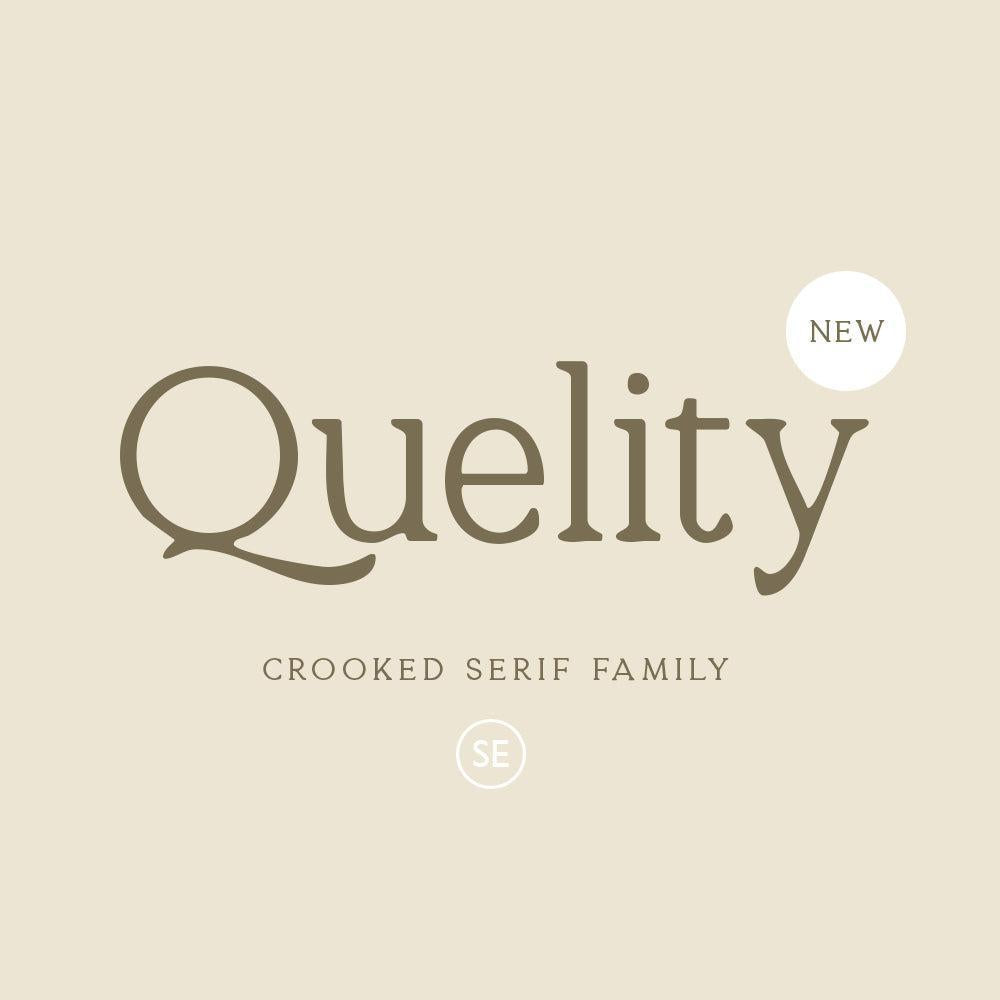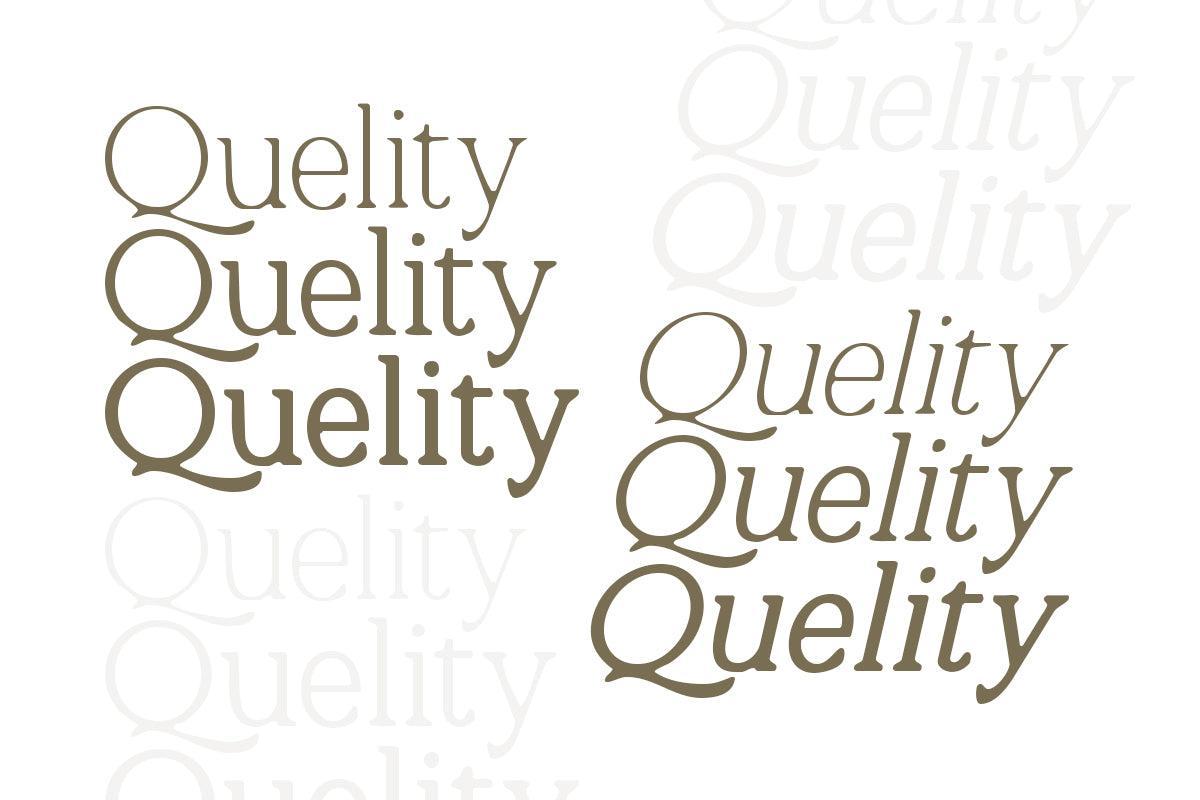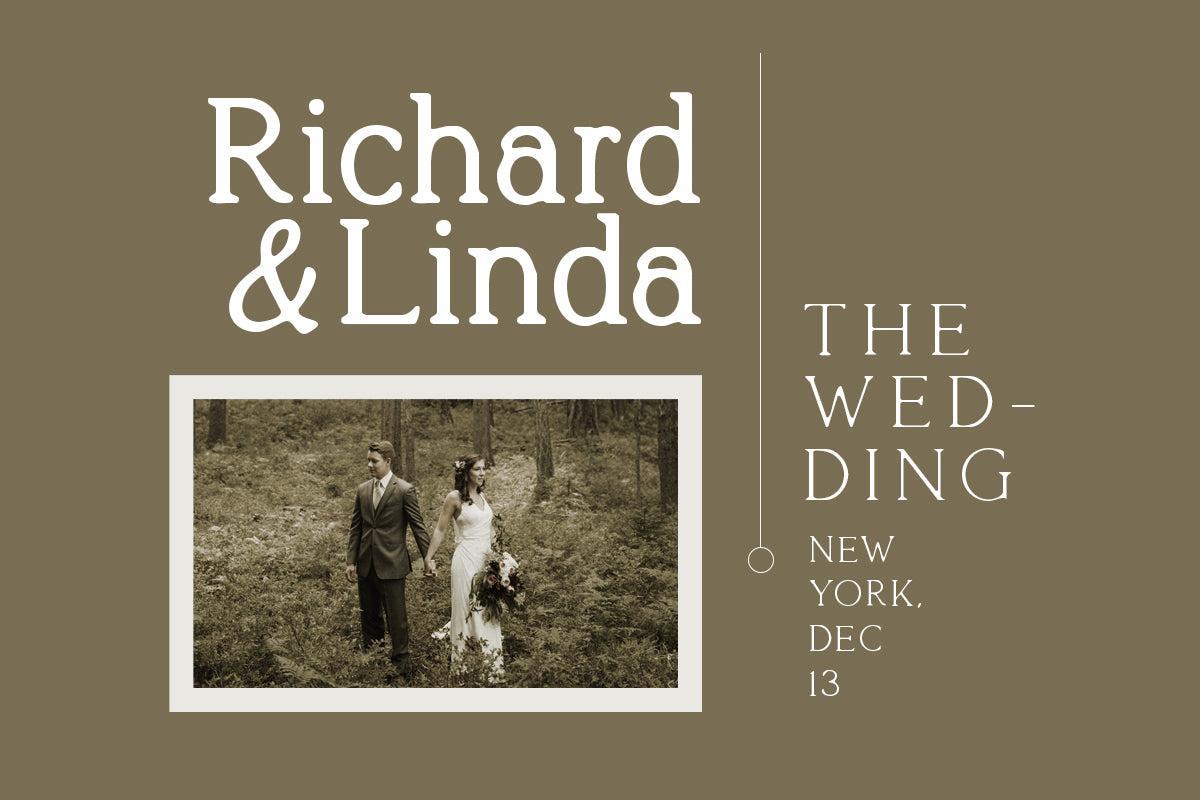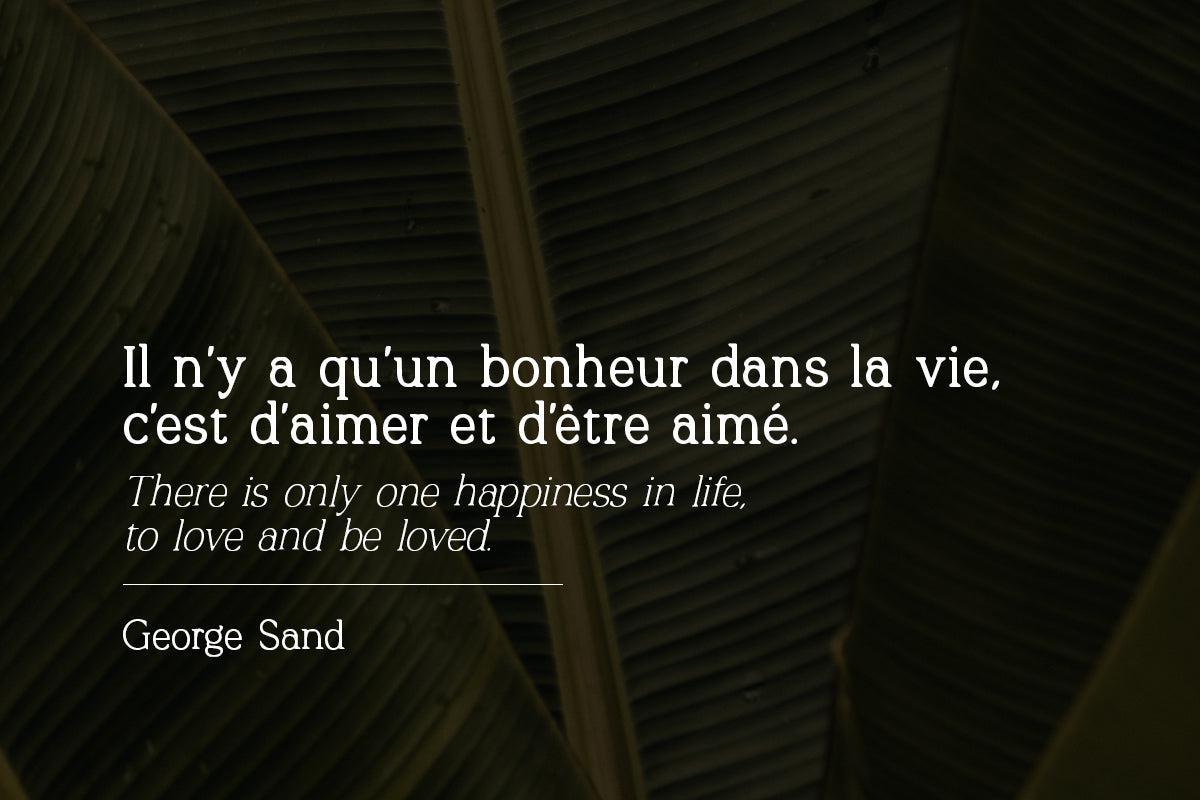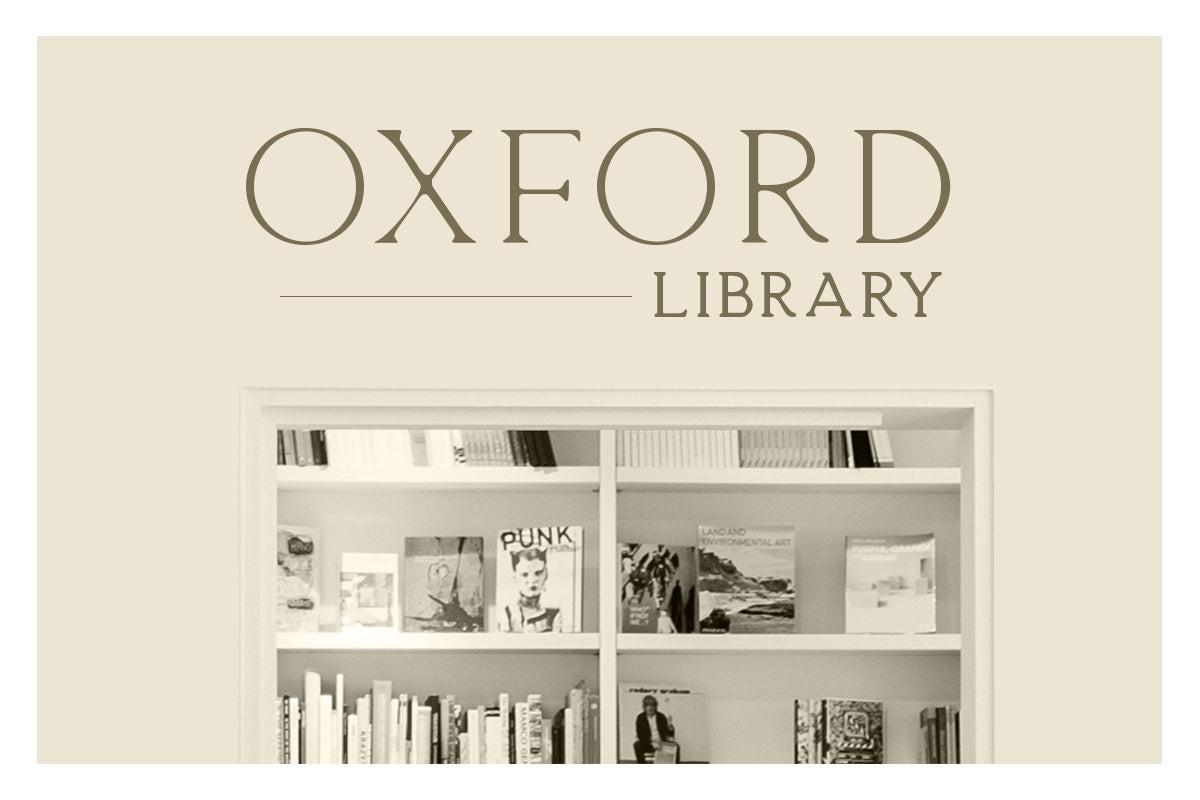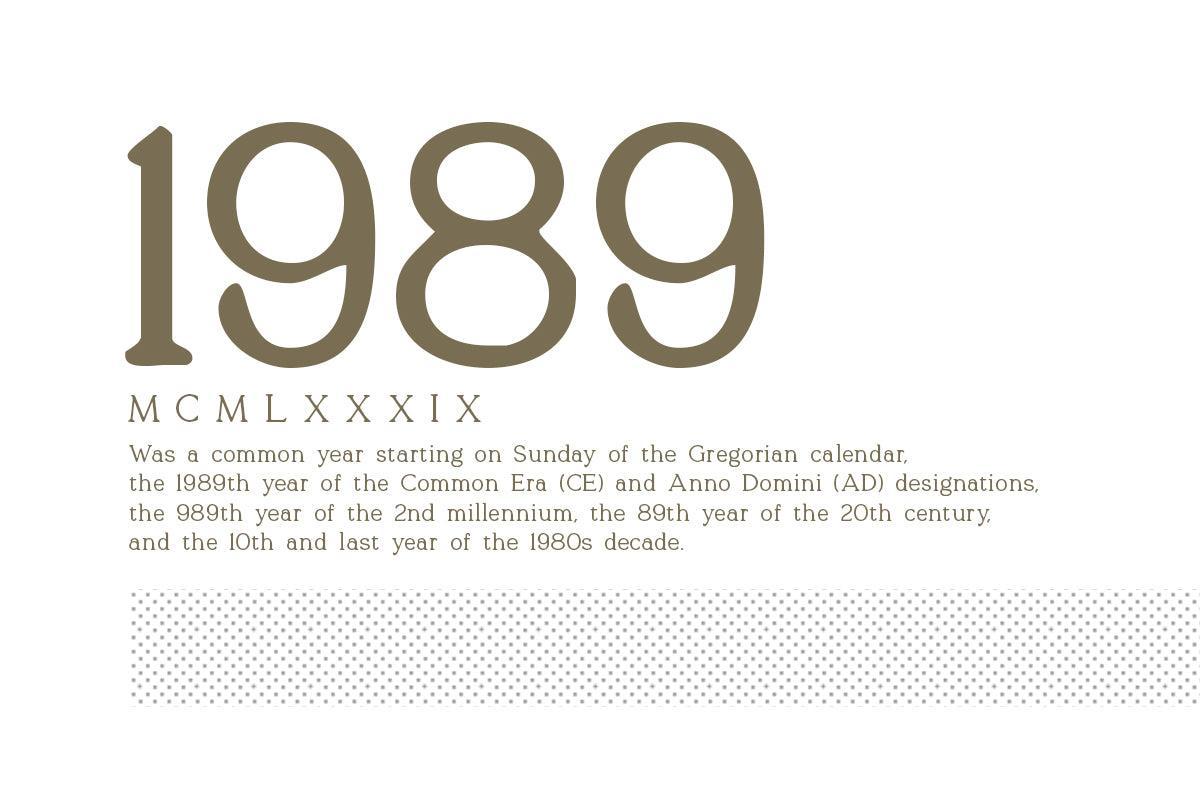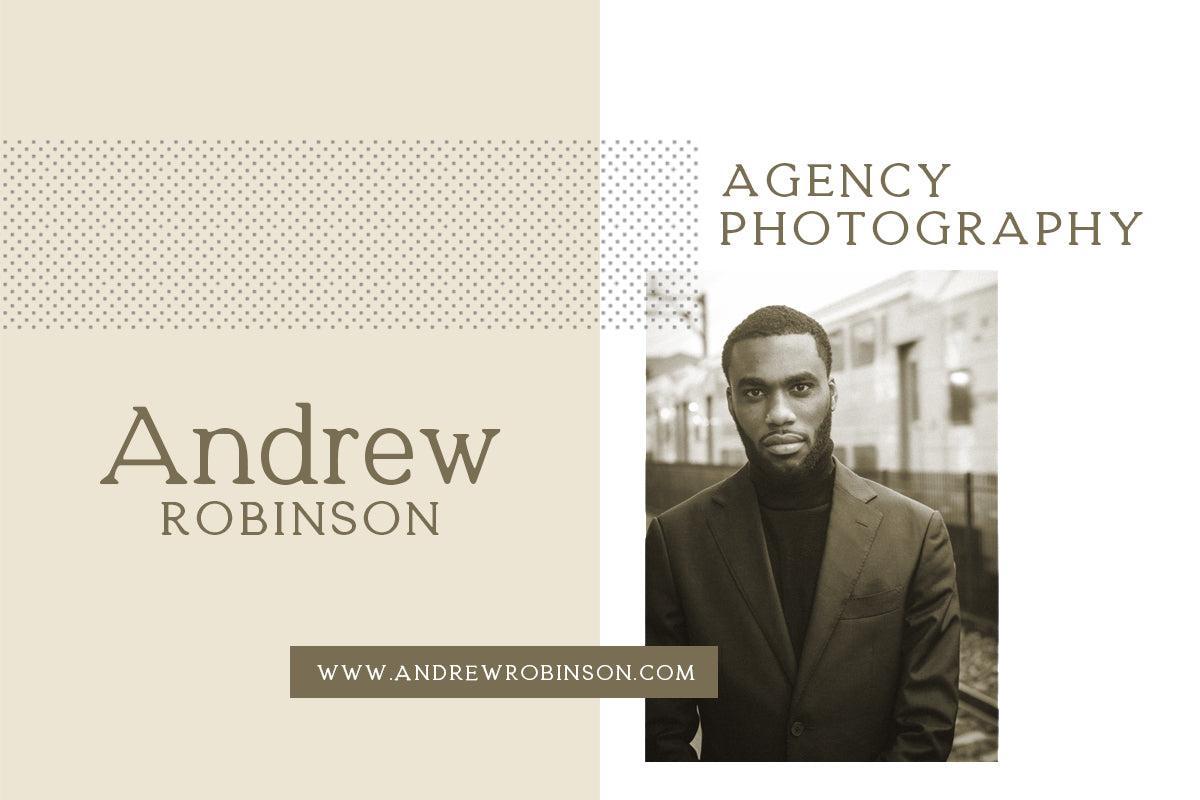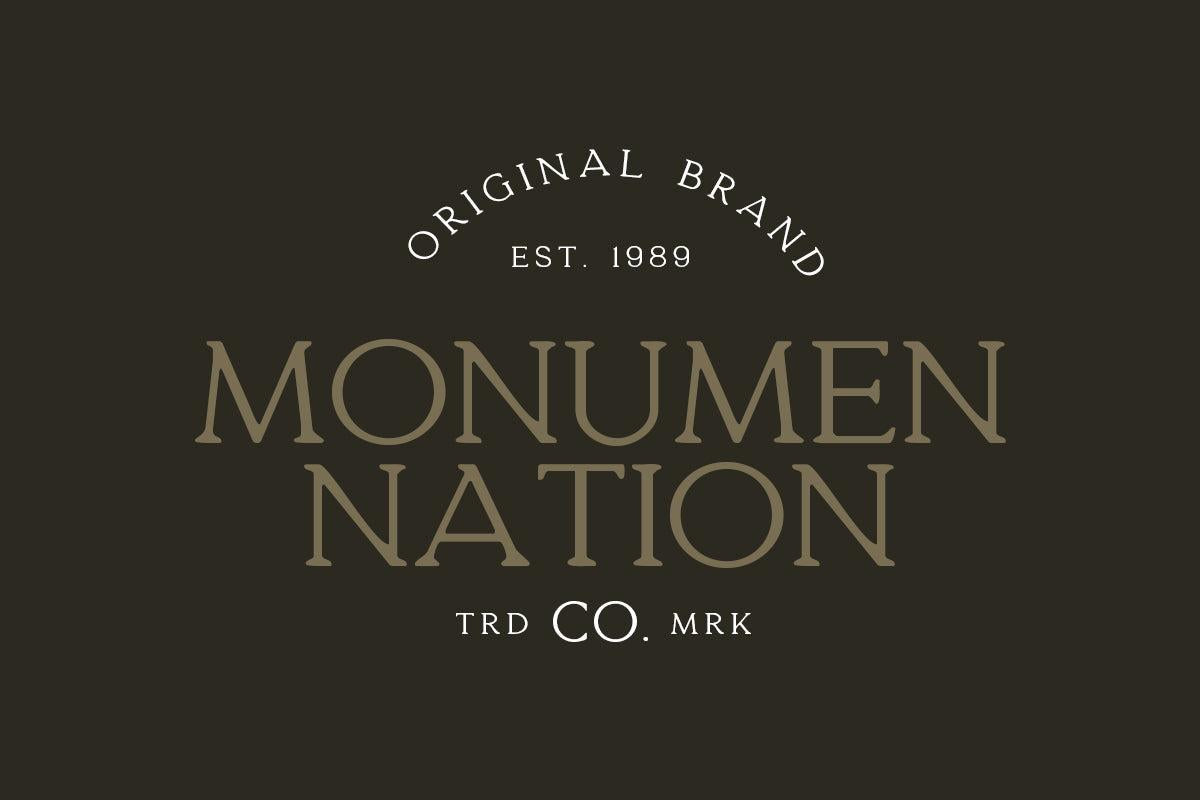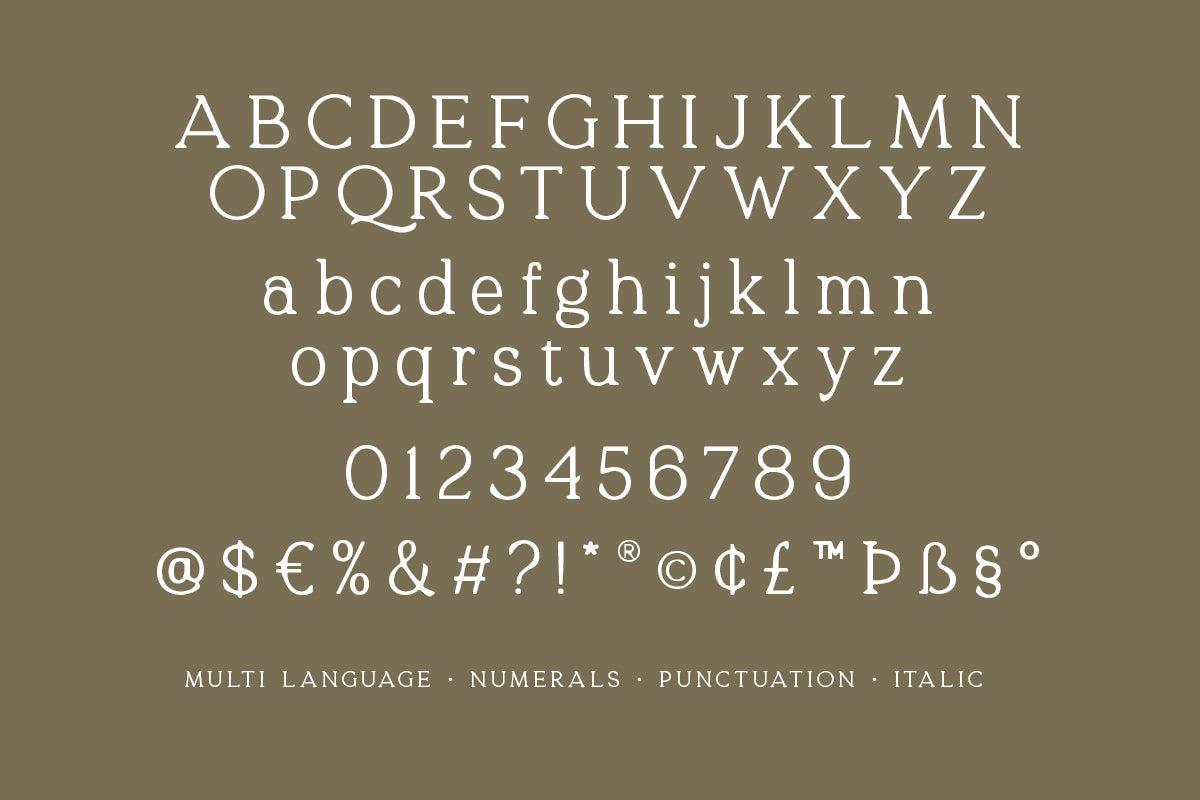
Quelity - Crooked Serif Font
Quelity is a crooked serif family with natural and organic feels! Contain 16 fonts. Including Light-Regular - Bold with an italic each style. You can use this font for every project. Suitable for branding logo, a classic theme, and also for text. This font family also support multilingual, number and symbol. If you bored with a casual serif, maybe this font is for you!
Quelity is a crooked serif font family that includes 16 styles, ranging from Light to Bold, with corresponding italics for each. This multilingual font supports numbers and symbols, making it suitable for various design projects.